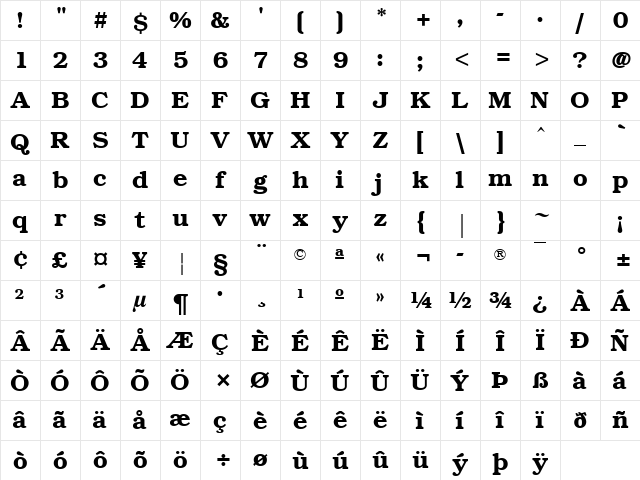
PC Brussels Demi
Style: Demi
PC Brussels Family
Complete PC Brussels Demi glyph index. Displaying only characters natively supported by PC Brussels Demi font.
Design Context for PC Brussels
PC Brussels is a composed and adaptable typeface that performs quietly and consistently across a wide range of design contexts.